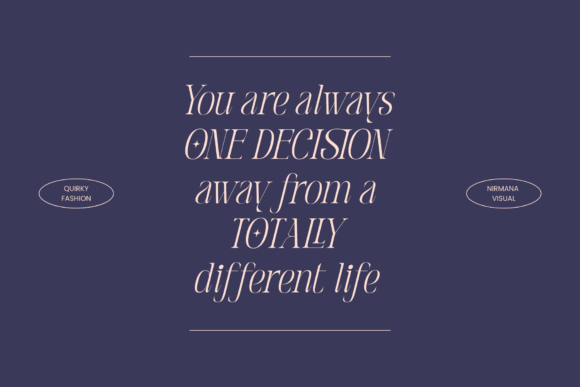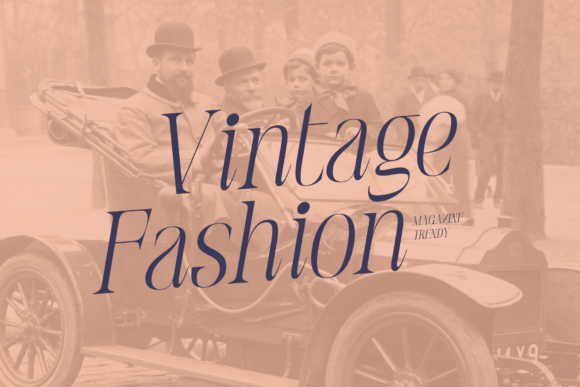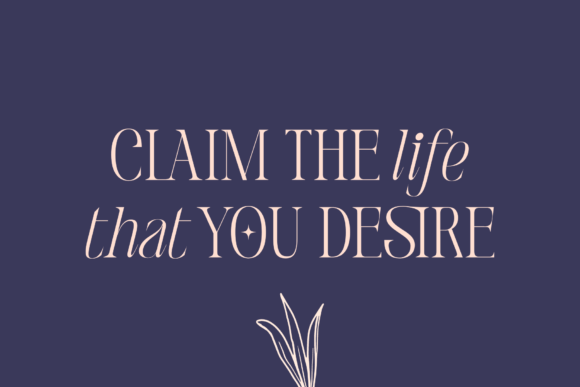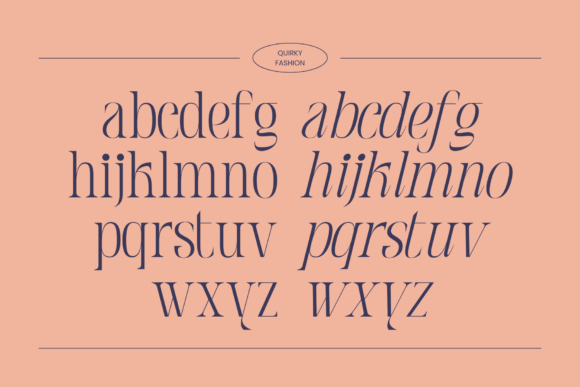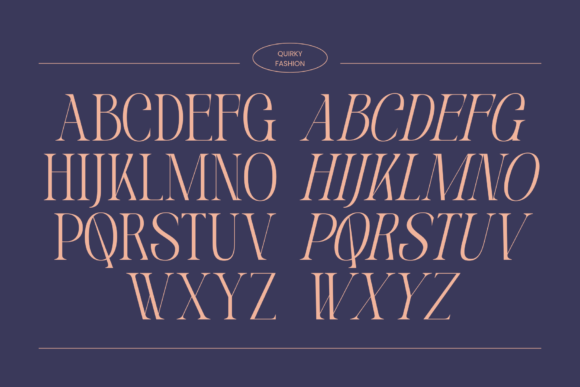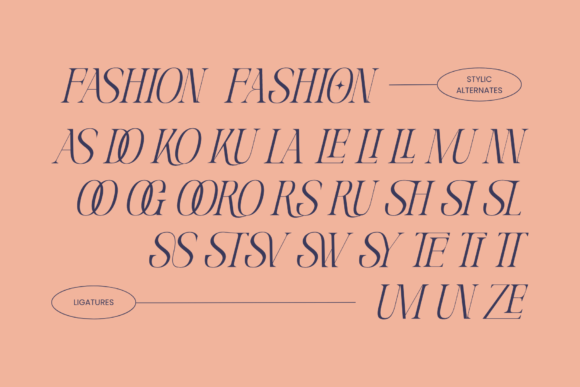
Introduction to Quirky Fashion Font
You’ve spent hours pouring over design inspiration boards, and finally, the perfect idea strikes – a bold, eye-catching logo that screams sophistication. But, as you start sketching, you realize that finding the right font is the real challenge. This is where Quirky Fashion Font comes in – a game-changing design resource that’s about to revolutionize your creative project.
This stylish and distinctive serif font is the perfect blend of classic elegance and contemporary design. Its unique letterforms feature sharp angles and curves, giving it a bold and sophisticated look that’s sure to elevate any design. Whether you’re working on a high-end branding project or need a font that exudes refined style, Quirky Fashion Font is the perfect choice. With its transparent background and high-quality design, it’s a must-have for any designer looking to take their work to the next level.
Key Features of Quirky Fashion Font
- Unique and playful design, perfect for creative projects and fashion-related designs.
- Includes a range of characters, including uppercase and lowercase letters, numbers, and special characters, making it suitable for a variety of design projects.
- Perfect for designers working on fashion-related projects, such as fashion magazines, blogs, and e-commerce websites.
Honest Review: Quirky Fashion Font
I recently had the chance to work with the Quirky Fashion Font, and I must say, it’s been a delightful experience. This font is perfect for designers who want to add a touch of personality to their projects.
- What works well: ✨ The Quirky Fashion Font is incredibly versatile and can be used for a wide range of creative projects, from fashion branding to editorial design. Its unique style and high quality make it a valuable design resource.
However, I did encounter a few limitations. ⚠️ The font may not be suitable for projects that require a more professional or conservative tone. Additionally, the font’s quirky nature can sometimes be overwhelming, so it’s essential to use it thoughtfully.
Overall, I’m impressed with the Quirky Fashion Font. It’s a great addition to any designer’s toolkit, and I’d highly recommend it for creative projects that require a bit of flair.
The Quirky Fashion Font is ideal for creative projects that require a high-quality, eye-catching font. Some common use cases include fashion blog headers, design portfolios, and social media graphics. The font’s unique design and transparent background make it perfect for adding a touch of style to any design.
To get the most out of the Quirky Fashion Font, use it in conjunction with other design resources, such as graphics and textures. Experiment with different font sizes, colors, and styles to create a unique look that suits your design needs. Additionally, use the font’s transparent background to add depth and interest to your design.